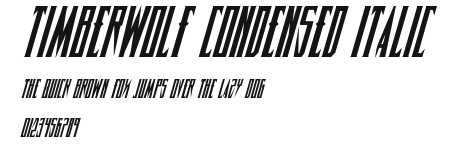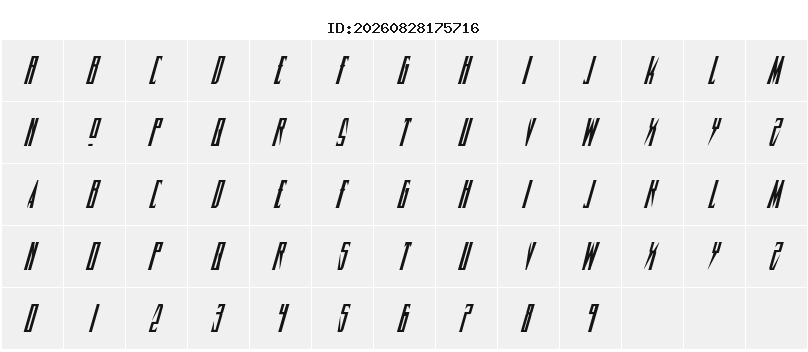
Timberwolf Condensed Italic Preview
• Font Name: Timberwolf Condensed Italic
• Font Style: Condensed Italic
• Full Font Name: Timberwolf Condensed Italic
• PostScript Name: TimberwolfCondensedItalic
About Timberwolf Condensed Italic.ttf
Timberwolf Condensed Italic.ttf is a modern, elegant sans-serif font designed for ultimate readability and visual harmony. Perfect for branding, headlines, web design, and print materials.